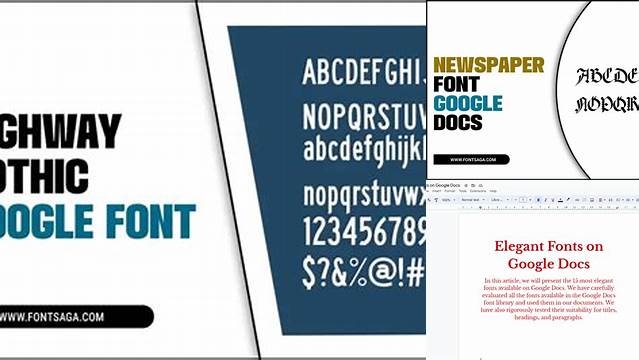
Fonts In Google Docs: The Ultimate Guide
Choosing the right fonts in Google Docs is essential for creating professional and visually appealing documents. Fonts not only impact the readability of your text but also convey the tone and style of your content. This comprehensive guide will delve into everything you need to know about fonts in Google Docs, from selecting the perfect typeface to adding custom fonts and troubleshooting common issues. So, whether you're crafting a formal report, a creative story, or a collaborative project, understanding fonts in Google Docs will help you elevate your document's overall impact. Guys, letβs dive in and explore the world of fonts in Google Docs!
Why Fonts Matter in Google Docs
Fonts, my friends, play a crucial role in how your document is perceived. The right font can make your content more readable, engaging, and professional. Think about it: a formal business proposal wouldn't look quite right in a playful, handwritten-style font, would it? Similarly, a children's story might feel a bit stiff if written in a traditional serif font like Times New Roman. Fonts contribute significantly to the overall tone and style of your document. When you carefully consider your font choices, you're essentially setting the stage for your message, making it more likely to resonate with your audience. Imagine trying to read a lengthy report in a font that's cramped and difficult to decipher β it's a recipe for frustration! But with a well-chosen font, the same report becomes much more accessible and inviting. Moreover, fonts can reinforce your brand identity. If you're creating documents for your business, using consistent fonts across all materials helps to establish a cohesive and recognizable brand image. So, don't underestimate the power of fonts β they're a fundamental element of effective communication in Google Docs and beyond.
Exploring the Default Fonts in Google Docs
Google Docs comes pre-loaded with a variety of default fonts, offering a great starting point for most documents. These fonts are broadly categorized into serif, sans-serif, and display fonts, each with its unique characteristics and best-use cases. Serif fonts, like Times New Roman and Georgia, are characterized by small strokes or "serifs" at the ends of the letters, giving them a classic and traditional look. They're often preferred for body text in print documents because the serifs help guide the reader's eye across the page, enhancing readability. Sans-serif fonts, such as Arial and Helvetica, lack these serifs, resulting in a cleaner and more modern appearance. They tend to work well for headings, subheadings, and online content, where clarity is paramount. Display fonts, on the other hand, are more decorative and expressive, designed to catch the eye and create a specific mood. These are great for titles, logos, and other elements where visual impact is desired, but should be used sparingly for body text to avoid overwhelming the reader. Within these categories, Google Docs offers several popular options. For a formal document, you might opt for Times New Roman or Georgia for the body text and Arial or Helvetica for headings. For a more contemporary feel, you could choose Open Sans or Lato. The key is to experiment with different fonts and combinations to find what best suits your content and style.
Best Practices for Using Fonts in Google Docs
To wrap things up, let's go over some best practices for using fonts in Google Docs to create professional and visually appealing documents. First and foremost, readability should be your top priority. Choose fonts that are easy on the eyes, especially for body text. Serif fonts like Georgia and Times New Roman are great for print documents, while sans-serif fonts like Arial and Open Sans work well for online content. Avoid using overly decorative or stylized fonts for large blocks of text, as they can strain the reader's eyes. Consistency is another crucial factor. Stick to a limited number of fonts β typically two or three β to maintain a cohesive and professional look. Use one font for headings and another for body text, and consider using a third font for accents or captions. Avoid mixing too many different fonts, as this can make your document look cluttered and disorganized. Pay attention to font sizes as well. Headings should be larger than body text, and subheadings should be smaller than headings but larger than body text. This creates a clear visual hierarchy and helps guide the reader through your document. Consider your audience and the purpose of your document when choosing fonts. A formal report will require different font choices than a casual blog post. Finally, don't be afraid to experiment with different font combinations, but always prioritize clarity and consistency. By following these best practices, you can harness the power of fonts to create documents that are not only visually appealing but also effective in conveying your message. So, go forth and create, guys!